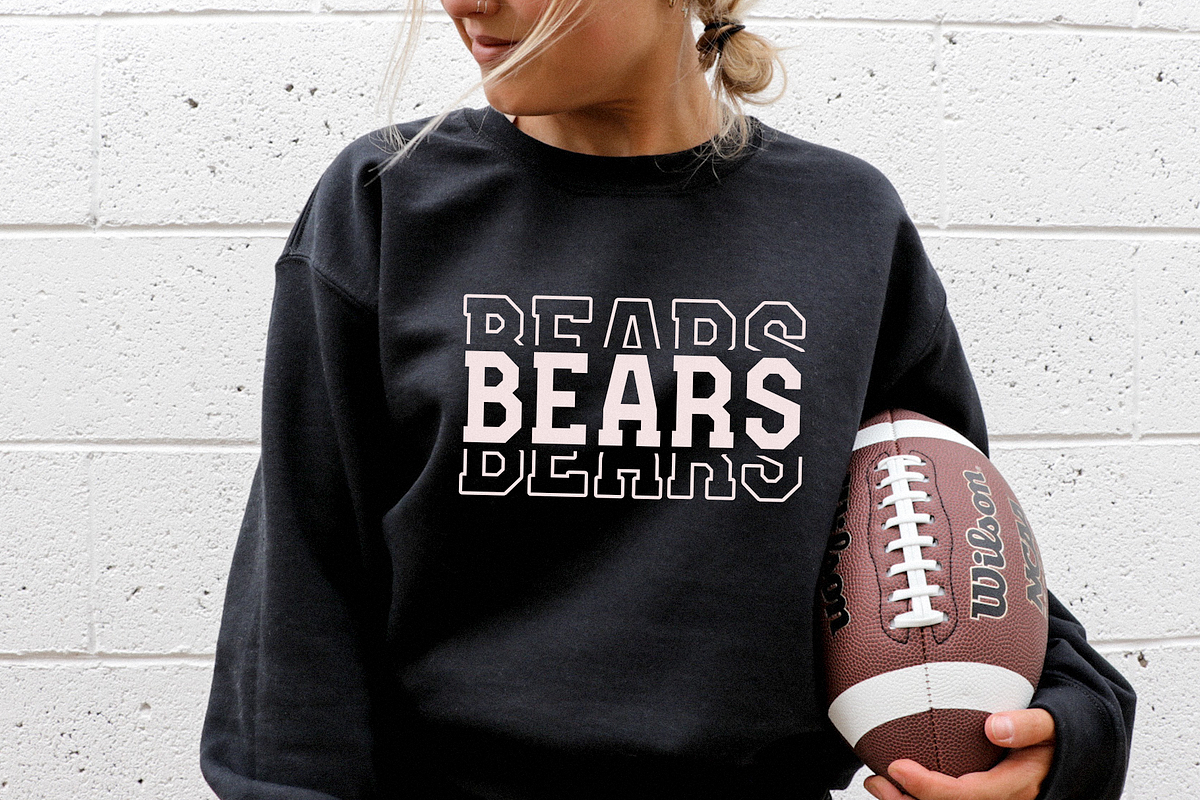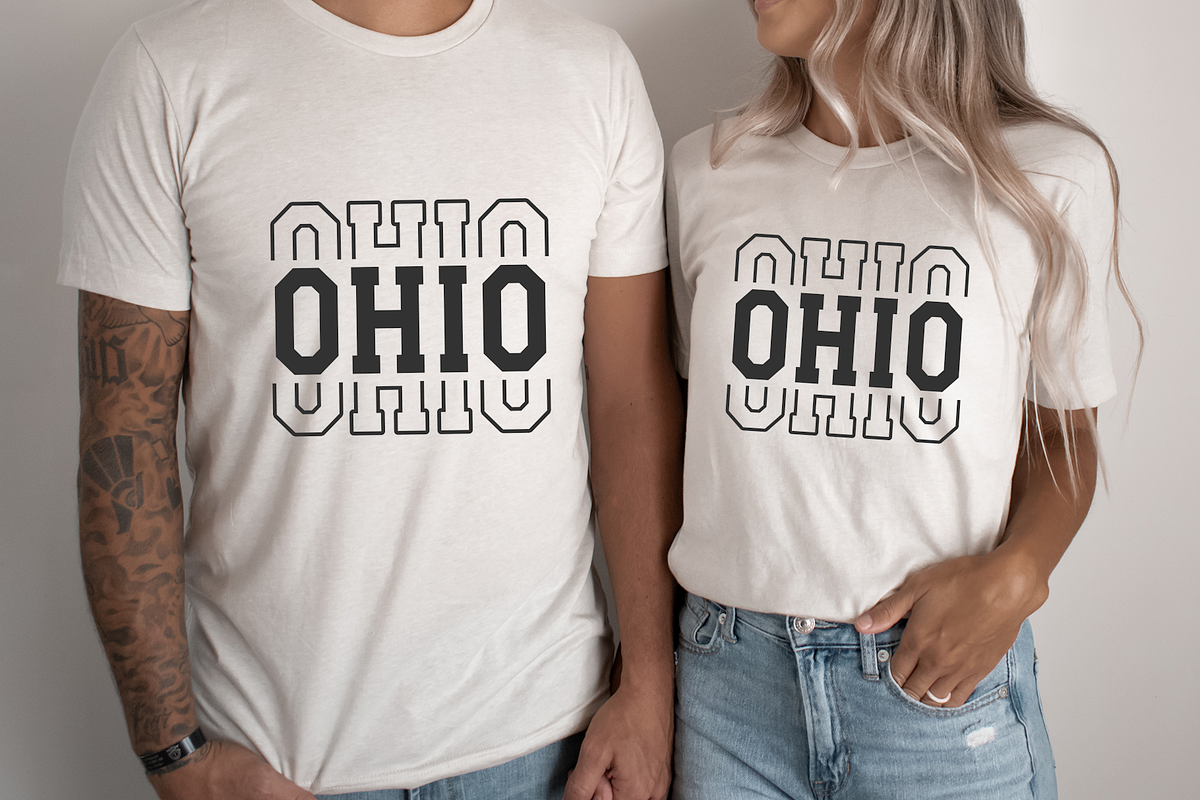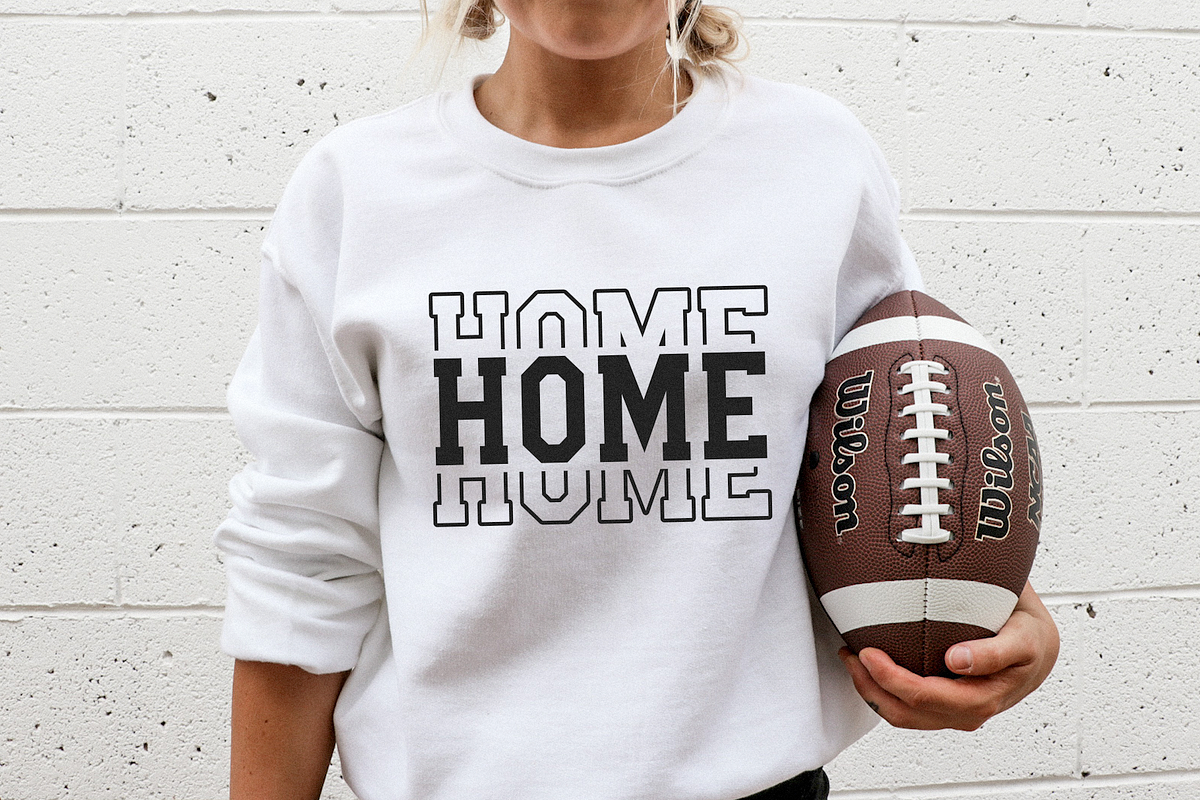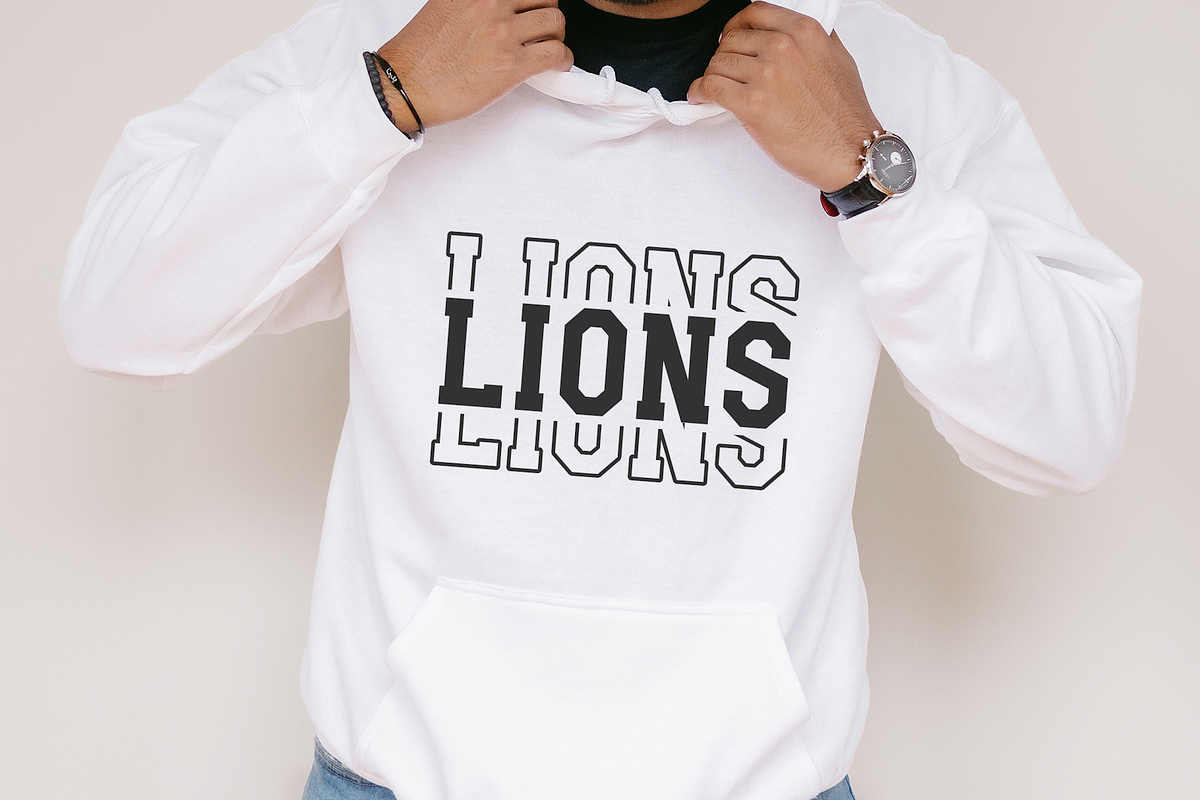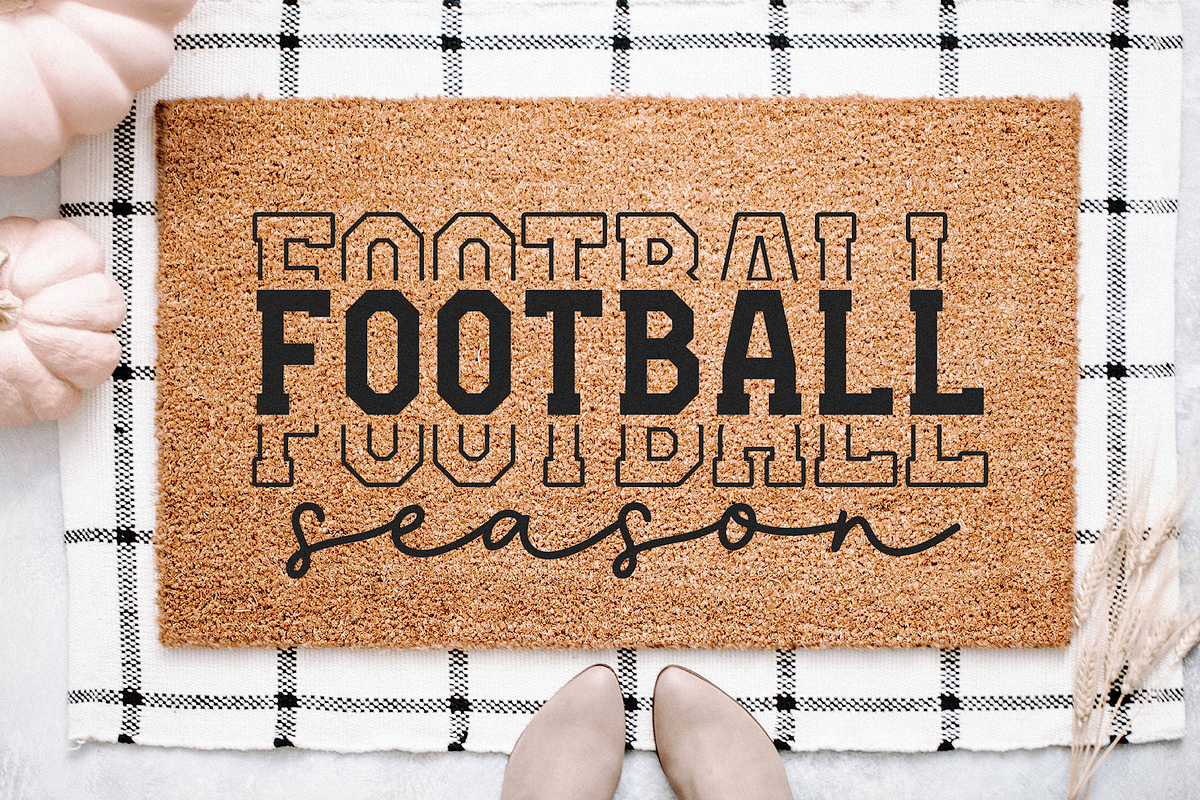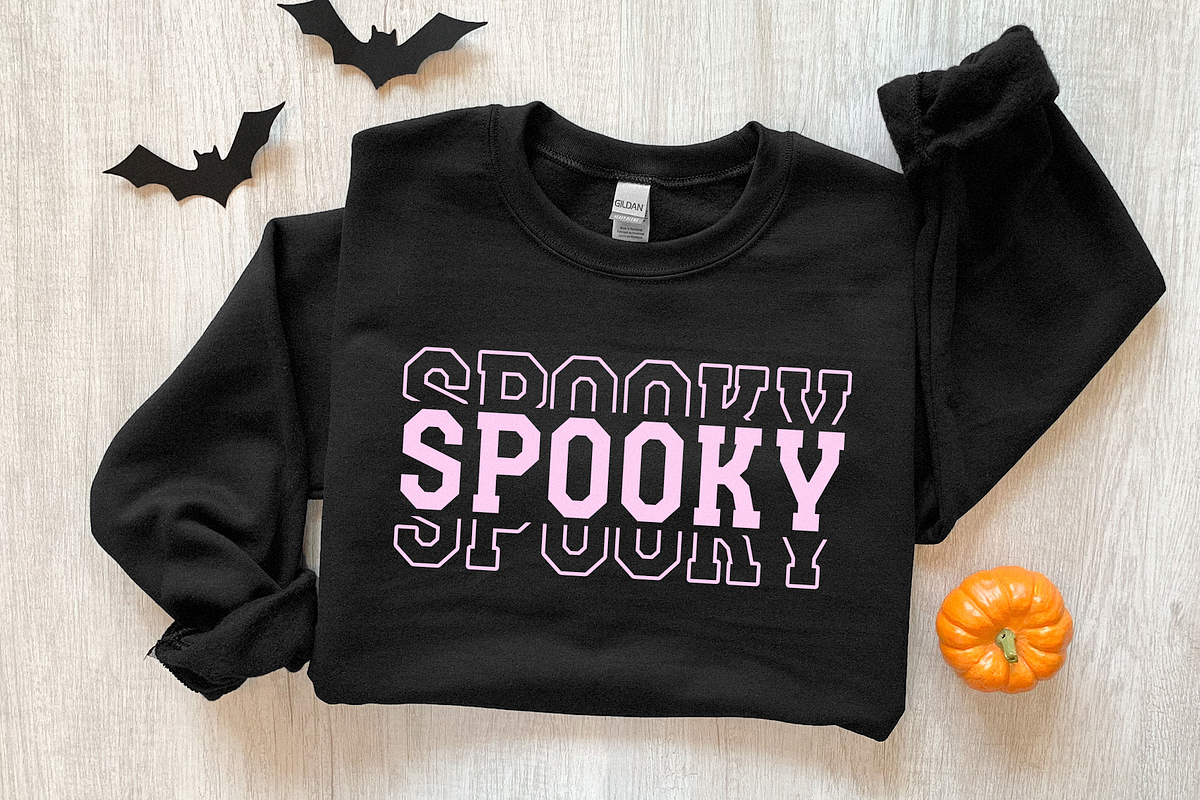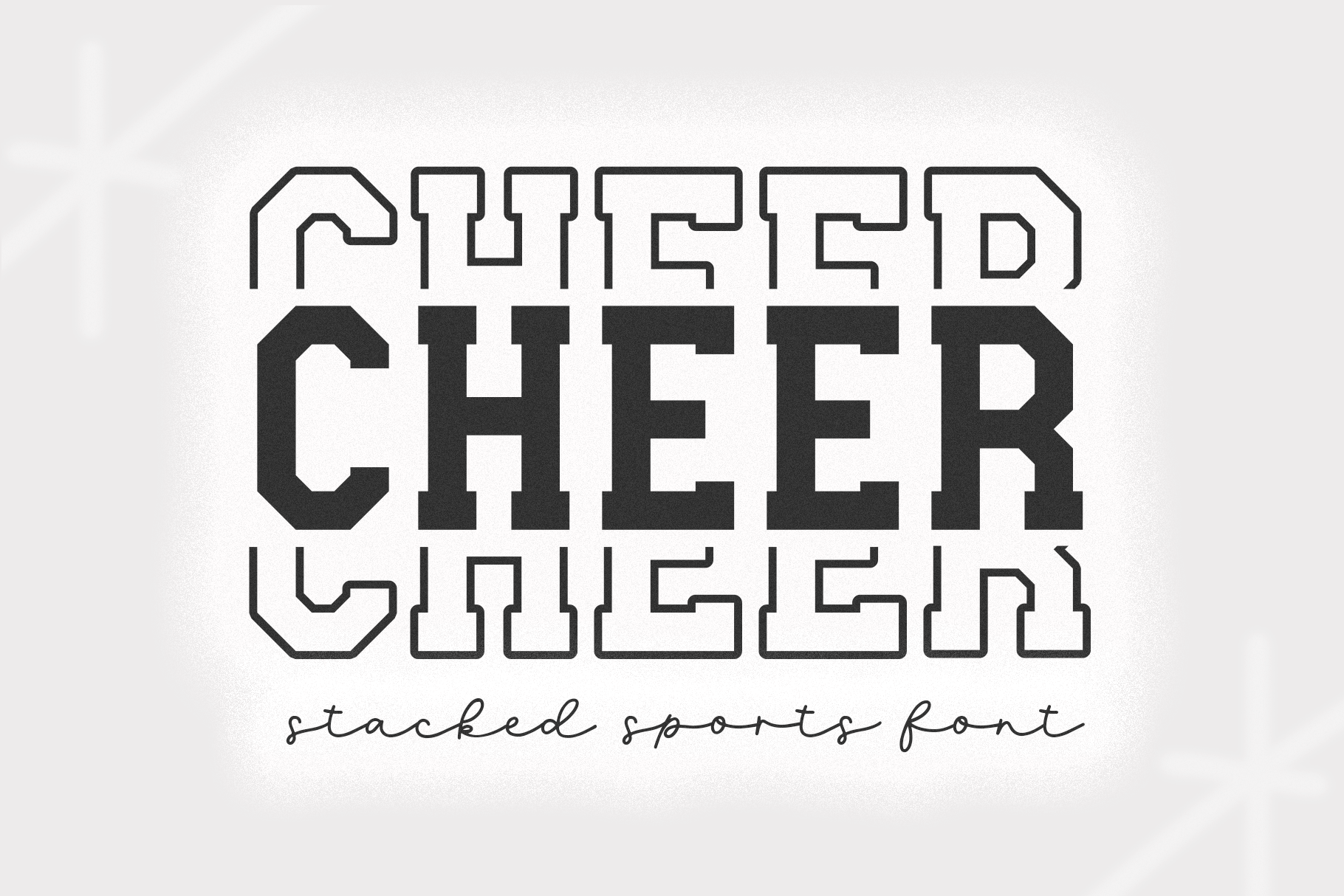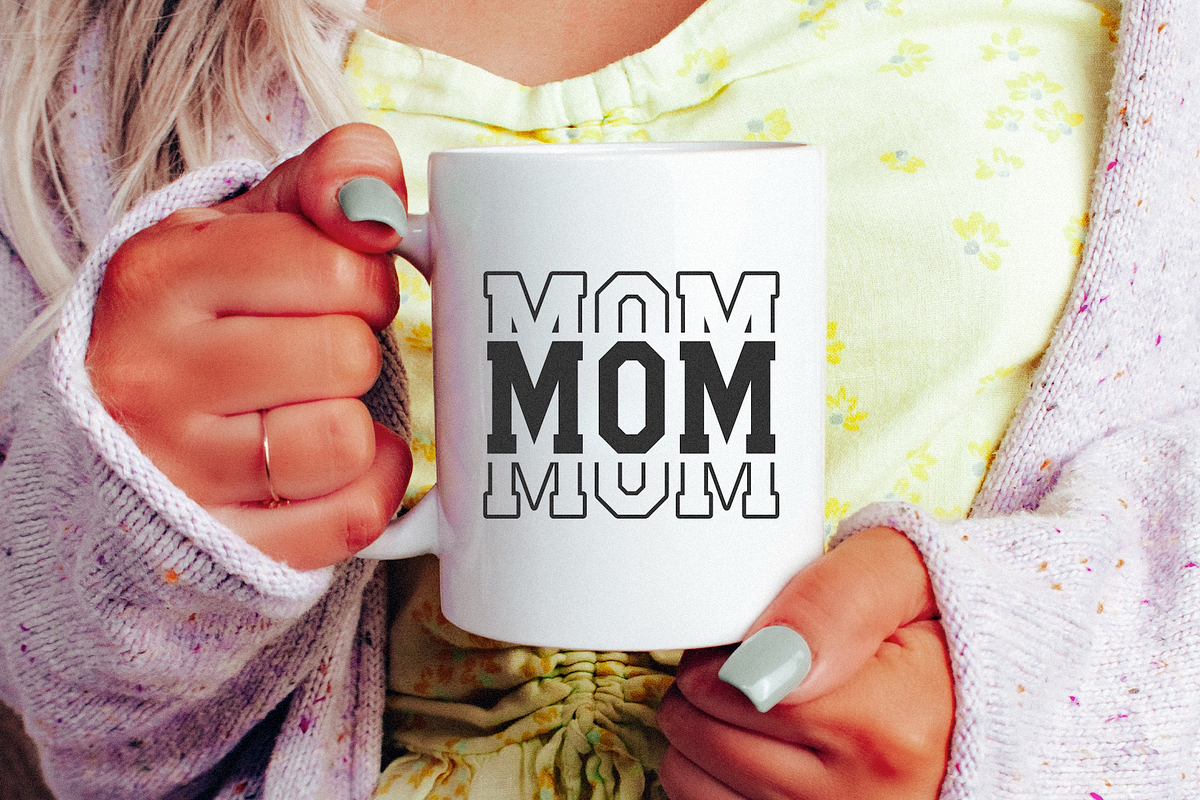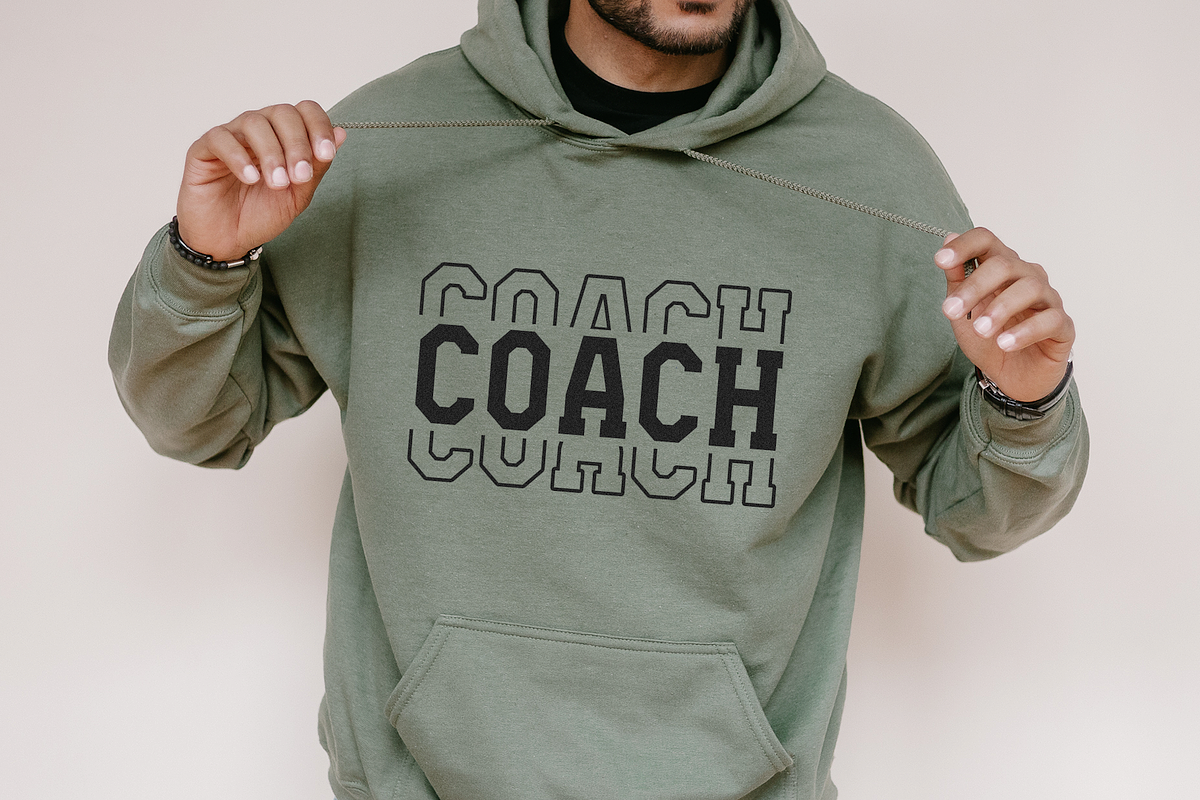
Cheer | Varsity Stacked Font
Cheer is a varsity style sports stacked font.
This font is perfect for your sports shirts, stickers, decals, vinyl, social media, baseball shirts, jerseys and more!